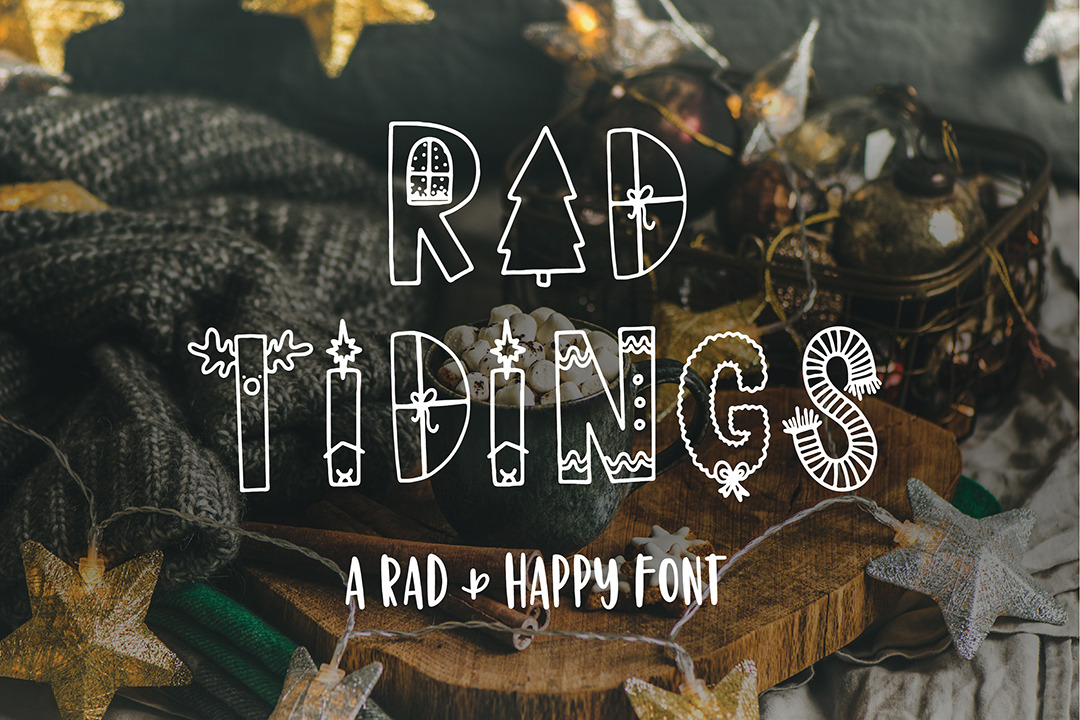
Rad Tidings - HandDrawn Holiday Font
This hand-lettered Rad and Happy font will bring holiday cheer to your Christmas season! Rad Tidings is perfect for gift tags, custom coloring pages, party banners, letters to Santa, and more.